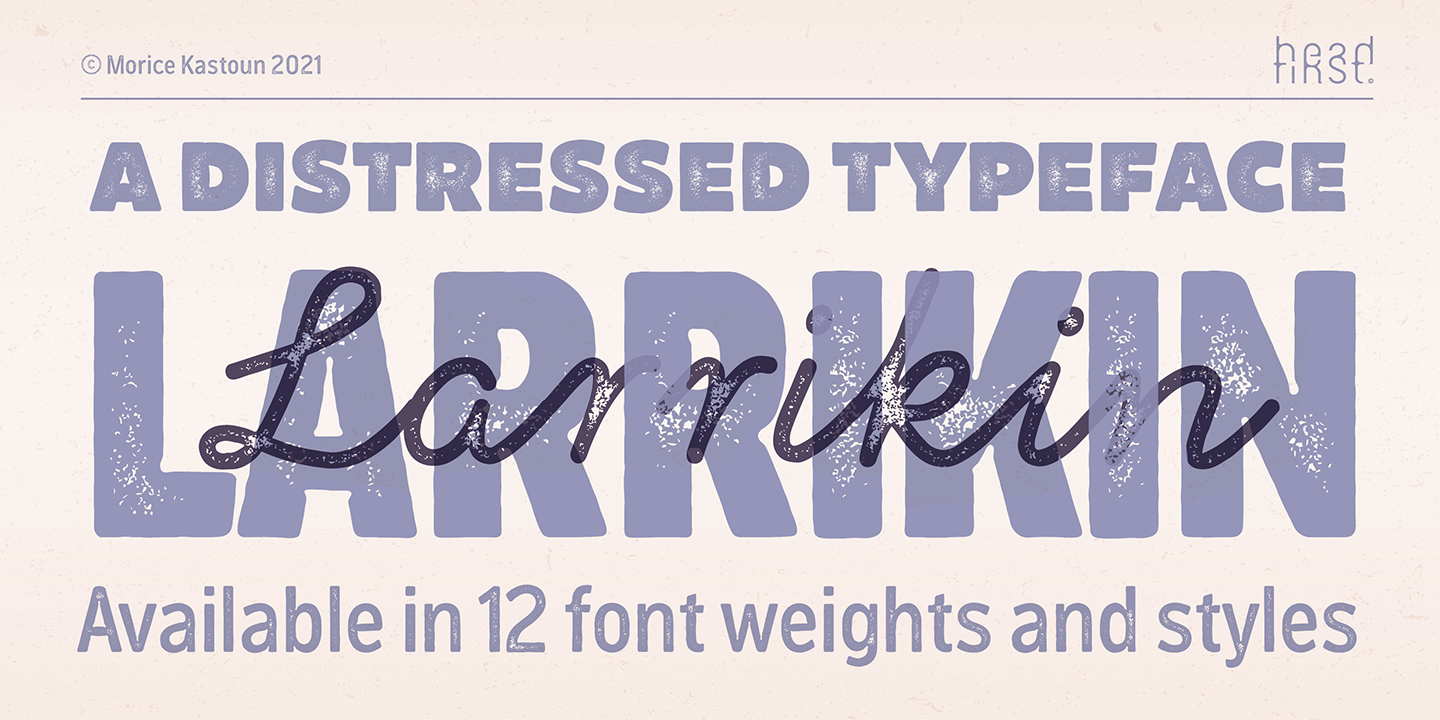
Larrikin Font is perfect for Australian tourism campaigns, outback adventure branding, surf culture marketing, casual lifestyle communications, rebellious youth campaigns, unconventional startup logos, mischievous party invitations, playful product packaging, cheeky social media graphics, and irreverent advertising materials. Its roguish character makes it ideal for projects requiring spirited nonconformity and playful rebellion that celebrates free-spirited authenticity.
What makes Larrikin Font exciting is its authentic capture of spirited mischief and playful rebellion through letterforms that embody the carefree attitude and cheeky charm of true larrikins and free spirits. The font features irreverent curves with roguish proportions that convey spirited independence while maintaining excellent readability for rebellious communications. Its larrikin character transforms ordinary text into expressions of playful defiance that celebrate the joy of nonconformity and authentic self-expression.
The Larrikin Font family includes Regular, Bold, Light, Cheeky, Rebellious, Spirited, and Mischievous variations. Each style preserves the font's larrikin essence while offering different levels of roguish intensity and rebellious weight for creating authentic free-spirited graphics. The comprehensive character set includes playful symbols, rebellious ornaments, cheeky decorations, and spirited glyphs essential for genuine unconventional and youth-oriented typography projects.
Creative rebels and unconventional brands consistently choose Larrikin Font Free Download for projects demanding authentic roguish typography solutions. The font's spirited character instantly establishes rebellious credibility while ensuring clear communication across nonconformist marketing channels. Its versatility spans from subtle mischievous touches to bold statements that celebrate the essential human need for playful rebellion and the courage to be authentically different.
Whether you're developing unconventional brand identities, creating rebellious marketing materials, or designing spirited communications, Larrikin Font provides the perfect combination of roguish authenticity and contemporary functionality. The font's cheekily crafted letterforms ensure genuine larrikin character while maintaining excellent performance across various unconventional applications and free-spirited business communications.
The rebellious heritage of Larrikin Font makes it exceptional for creating spirited connections with audiences who value authenticity and embrace playful nonconformity. Its roguish precision and cheeky appeal work seamlessly across traditional rebellious materials and modern digital free-spirit platforms. The font performs mischievously in both large-scale spirited displays and intimate rebellious communications.
Embrace your inner rebel with Larrikin Font and discover how authentic roguish typography can enhance your unconventional projects with genuine spirited appeal and playful sophistication. This remarkable typeface combines larrikin tradition with contemporary functionality, making it indispensable for brands celebrating the timeless value of playful rebellion and the courage to be authentically different.